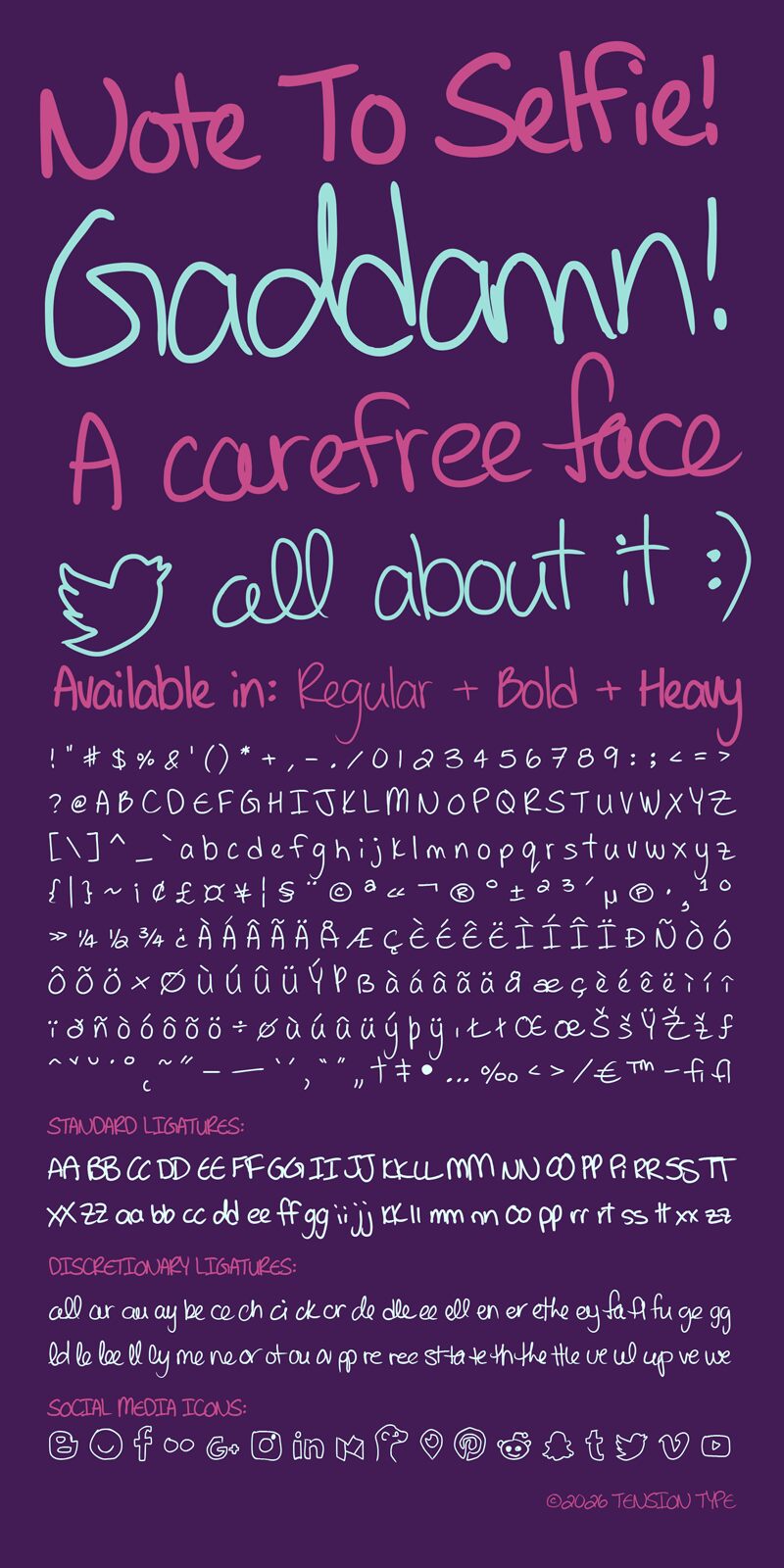
Note to Selfie font family by Tension Type includes three separately crafted handwritten fonts. This free font family perfectly matches the modern feel demanded by digital and print platforms such as websites, social media, and blogs. A popular typestyle nowadays among people of different ages, handwriting fonts communicate an informal, expressive style. Note to Selfieās informal lettering is casual, approachable, and perfectly imperfect.
Typical font uses range from social media to blogs and other digital or printed platforms where communication is set on a more relaxed note. Use it for digital applications in web or app design such as news sites, sports, lifestyle, motivational, or other e-publications. Insiders know how good handwriting fonts can be for adding a dynamic touch, standalone or combined with other fonts. Although rare, even the coolest gift shop owners with a casual atmosphere may want to give it a try.
Another handwritten typeface to choose from. While it may have a messy appearance, it captures a genuine and authentic feel. Unlike typical quick auto-traced fonts, this design has been crafted with care and attention to detail. I hope it complements your project perfectly.